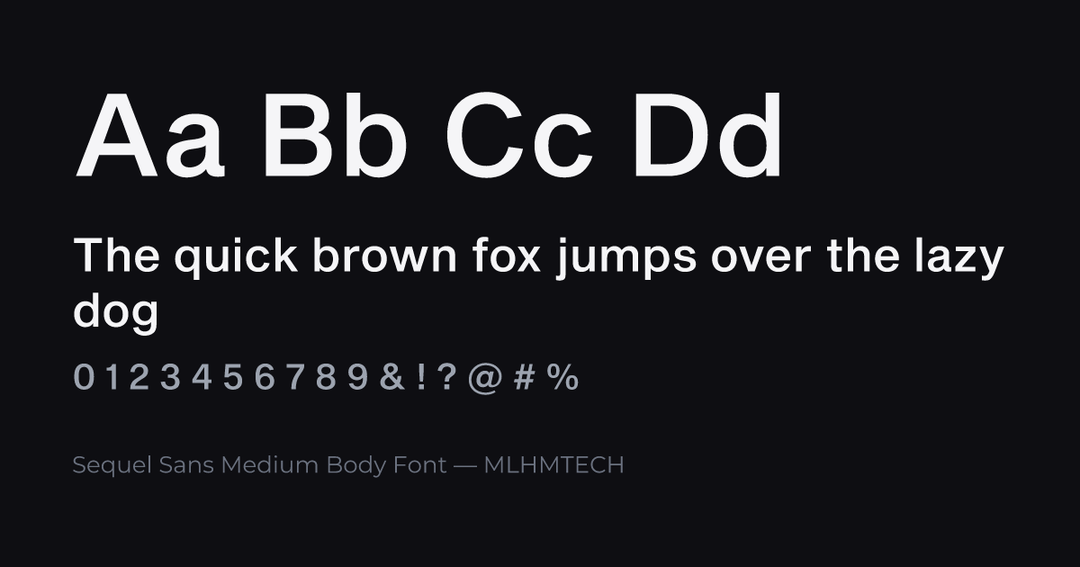
Sequel Sans Medium Body Font
Sequel Sans Medium Body is a clean, modern sans-serif font designed for comfortable body text. Its balanced proportions and medium weight make it ideal for UI, print, and video graphics.
Sequel Sans Medium Body is part of the Sequel Sans family, a geometric sans-serif with a contemporary feel. This medium weight is optimized for body copy, offering excellent legibility at small sizes while maintaining a sleek, neutral character. The font includes a full set of uppercase and lowercase letters, numerals, punctuation, and basic Latin diacritics. Its open apertures and even spacing reduce eye strain during extended reading, making it a reliable choice for websites, presentations, and on-screen text. For video editors, this font works well for lower thirds, captions, and end screens where clarity is key. Pair it with a heavier display font from the same family for strong hierarchy. The TTF format ensures compatibility across Windows, macOS, and most design software.